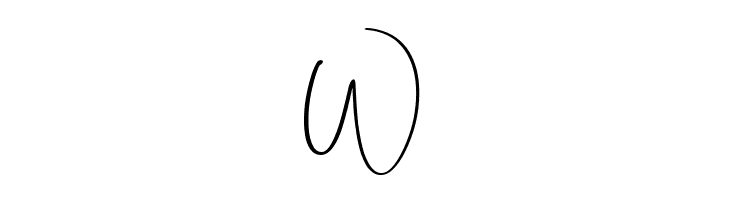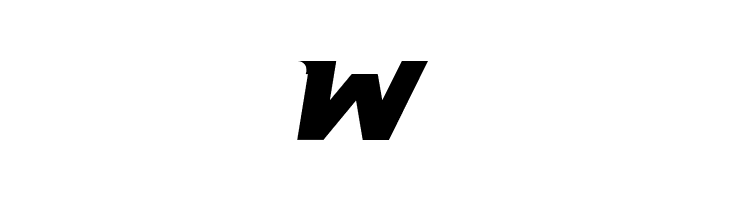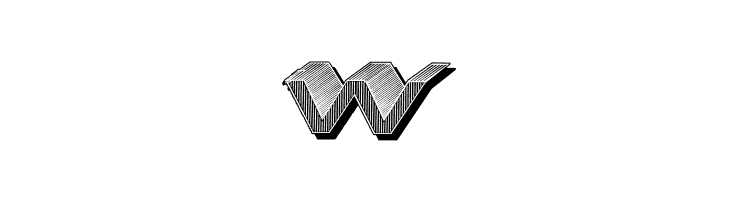
• Daryl Short
• Das Modern
A bold, geometric font with strong, angular lines and a modern aesthetic.
• Das Reicht Gut Regular
A modern, geometric font with rounded edges and consistent stroke width.
• DASAR NEGARA
A bold, textured brush-style font with a hand-painted look.
• DasBougie
• Dash Digital-7
A pixelated, digital-style font reminiscent of old digital displays.
• Dash Dot [BRK]
A playful font with characters made of dashes and dots, perfect for creative projects.
• Dash Dot LCD-7
A pixelated, LCD-style font with a modern, digital aesthetic.
• Dash Dot Square-7
A modern, dotted font with a digital and technical aesthetic.
• Dash Pixel-7
A pixelated, dot-based font with a retro digital aesthetic.
• Dash9812
• Dashaya
A bold, playful handwritten font with thick strokes and a casual, dynamic style.
• Dashboard Regular
A bold, geometric font with strong lines and modern appeal.
• Dashboard Regular
A bold, modern sans-serif font with geometric shapes and clean lines.
• DashHorizon
A bold, angular font with a dynamic, forward-leaning design.
• Dashing Personal Use
A bold, modern sans-serif font with clean lines and geometric structure.
• Dashing Unicorn
A playful, rounded font with a hand-drawn, whimsical style.
• Dashinta